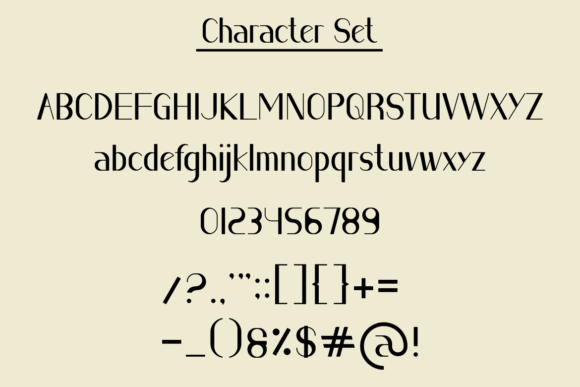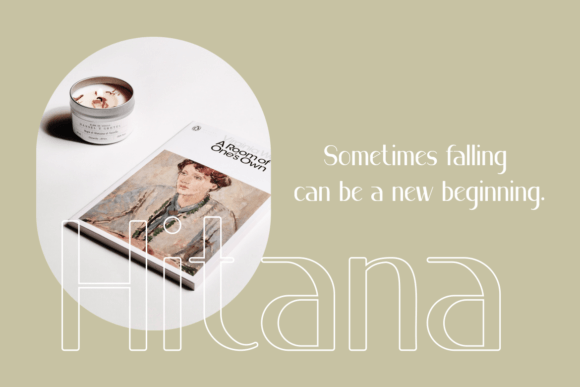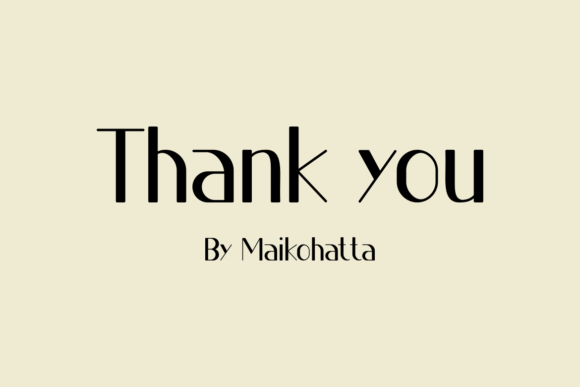
Introduction to Hitana Font
Have you ever stared at a blank canvas, trying to find the perfect font to bring your creative project to life? I’m sure you have. As designers, we know how crucial it is to have the right design resources at our fingertips. That’s why I’m excited to introduce you to the Hitana Font, a modern Sans Serif font that’s about to revolutionize your creative workflow.
With its bold and authentic feel, the Hitana Font is perfect for logos, t-shirt printing, esports, websites, branding, and many more. Its high-quality design makes it an outstanding choice in a wide range of contexts, from digital to print. And the best part? It’s available for free download, making it an invaluable addition to your design arsenal.
Whether you’re working on a personal project or collaborating with a team, the Hitana Font is a versatile design resource that’s sure to elevate your work. Its transparent background makes it easy to use, and its unique style will give your designs a distinctive touch that’s sure to impress.
Key Features of Hitana Font
- Comes with a transparent background, allowing for seamless integration into various design settings.
- Features a unique, elegant design that sets it apart from other fonts in its class.
- Designed to be highly legible, even at small font sizes, making it perfect for body text and titles alike.
- Includes a range of characters, including Latin, Cyrillic, and Greek scripts, making it a versatile design resource.
Honest Review: Hitana Font
As a designer, I’m always on the lookout for high-quality design resources to elevate my creative projects. Recently, I stumbled upon the Hitana Font, and I must say, it’s been a game-changer.
Here are some things that work well with the Hitana Font:
- ✨ Unique and modern design aesthetic that adds a touch of sophistication to any project.
- ✨ High-quality font that’s perfect for both digital and print designs.
- ✨ Transparent background, allowing for seamless integration with any design element.
- ⚠️ Limited font sizes and weights, which might restrict its versatility in certain design scenarios.
- ⚠️ Not suitable for complex text-heavy designs due to its minimalist design style.
Overall, I’m impressed with the Hitana Font. Its unique design and high-quality rendering make it a valuable addition to any designer’s toolkit. While it may have some limitations, it’s an excellent resource for designers looking to add a touch of modernity to their projects.
The Hitana Font is a high-quality design resource ideal for various creative projects. This free download offers a unique and stylish typography that can elevate your designs. With a transparent background, you can easily integrate it into your projects.
Tips for Getting the Most Out of Hitana Font
To get the most out of Hitana Font, use it in combination with other design elements to create a cohesive and visually appealing design. Experiment with different font sizes and colors to add depth and contrast to your design.
The Hitana Font is ideal for various creative projects, including logo designs, social media graphics, and blog posts. Its unique style and high-quality design make it a versatile resource for designers and non-designers alike.
Montserrat is a high-quality sans-serif font perfect for creative projects that require a modern and urban feel. It’s ideal for use in logos, headings, and body text. With a transparent background, Montserrat is a versatile design resource suitable for various design applications. Compared to Hitana Font, Montserrat is more geometric and sleek, making it a great alternative for designers who want a clean and minimalist look.